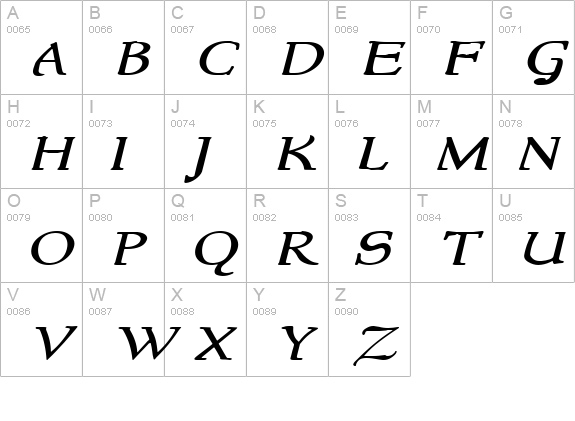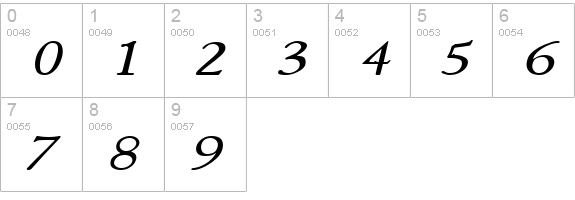
NewStyleWide Italic Font Details
NewStyleWide Italic is a distinctive, italic variant in the NewStyleWide typeface family \xE2\x80\x94 well suited to design and typography projects.
NewStyleWide Italic font is a stylish and modern typeface that adds a touch of sophistication to any design. Its wide letterforms and elegant italic style make it perfect for headlines, logos, and branding projects. The font strikes the perfect balance between professionalism and creativity, making it versatile for a wide range of design applications. Best of all, NewStyleWide Italic font is available for free download at FontsMarket.com. This means you can easily access and use this beautiful font in your projects without any cost. Don't miss out on the opportunity to elevate your designs with this high-quality typeface. Download NewStyleWide Italic font today and take your creations to the next level!